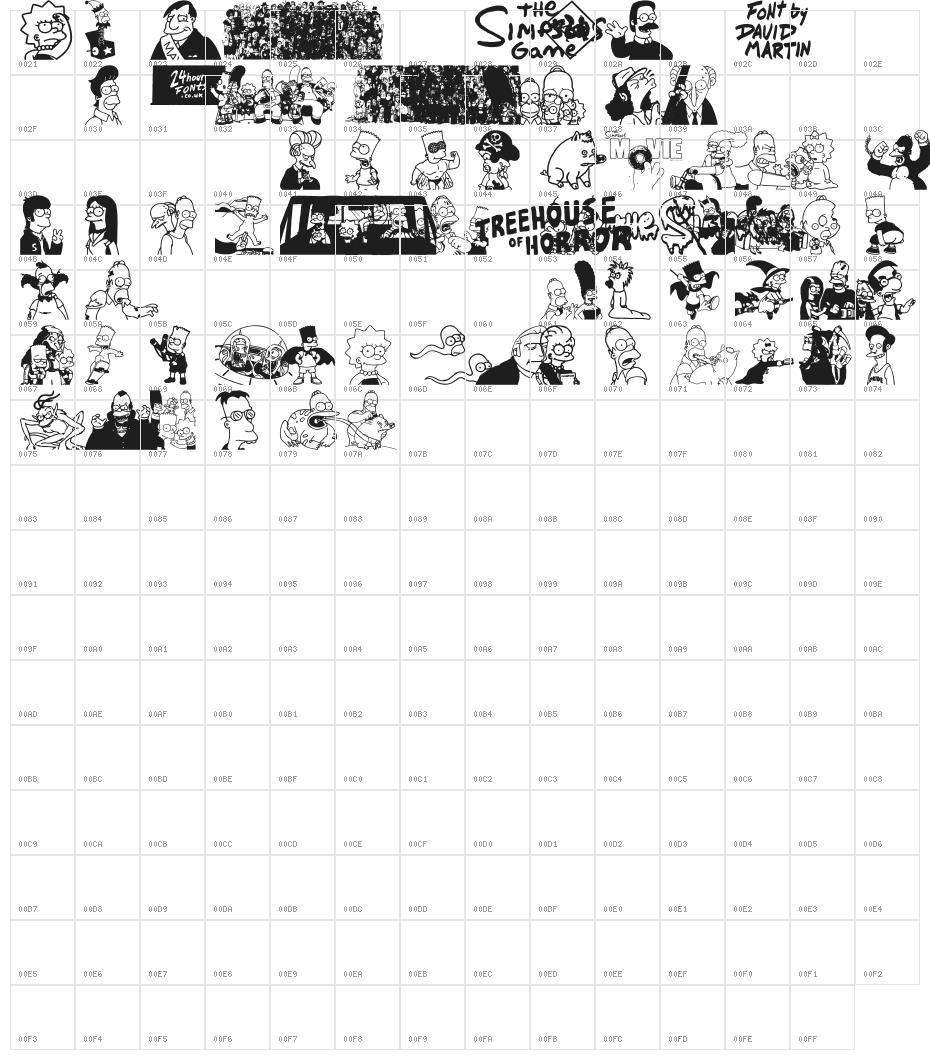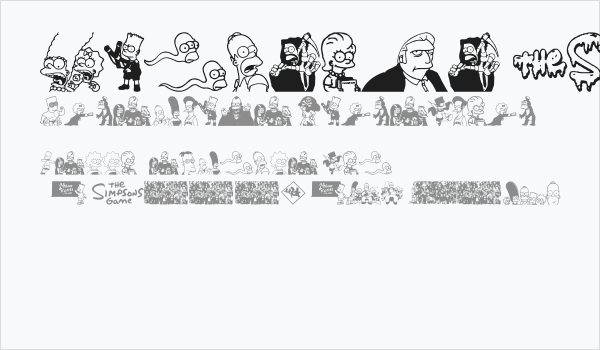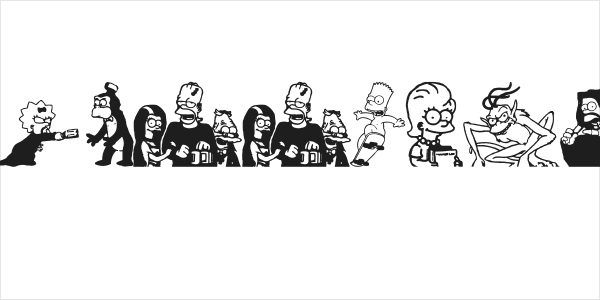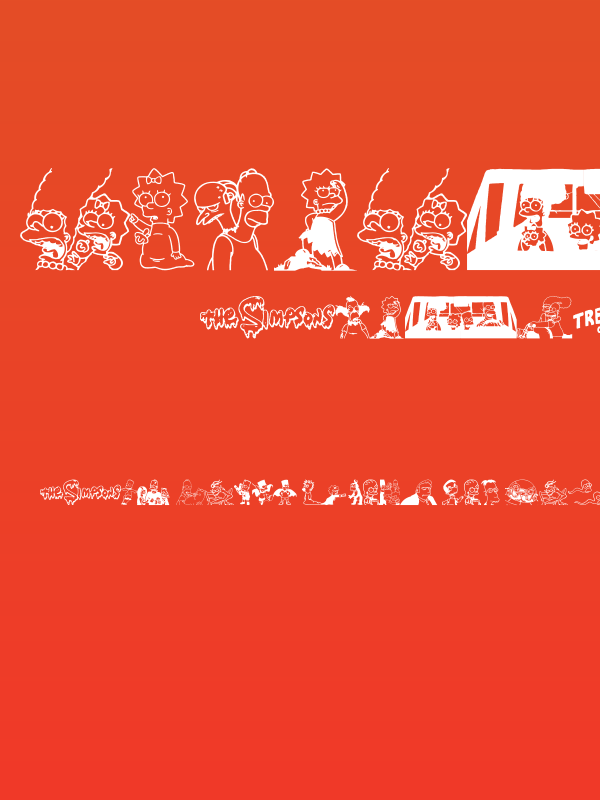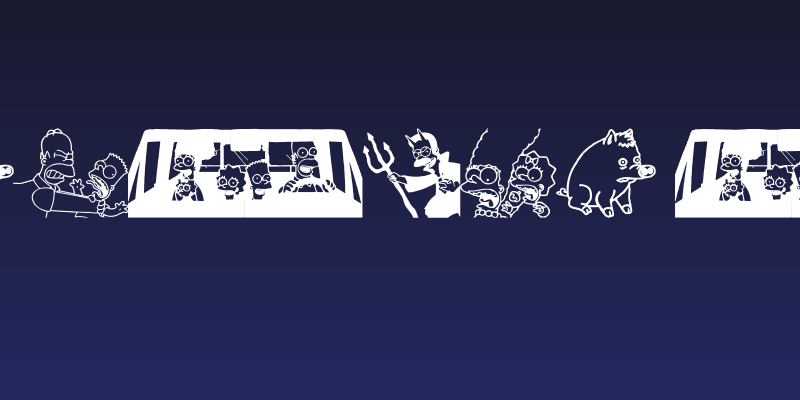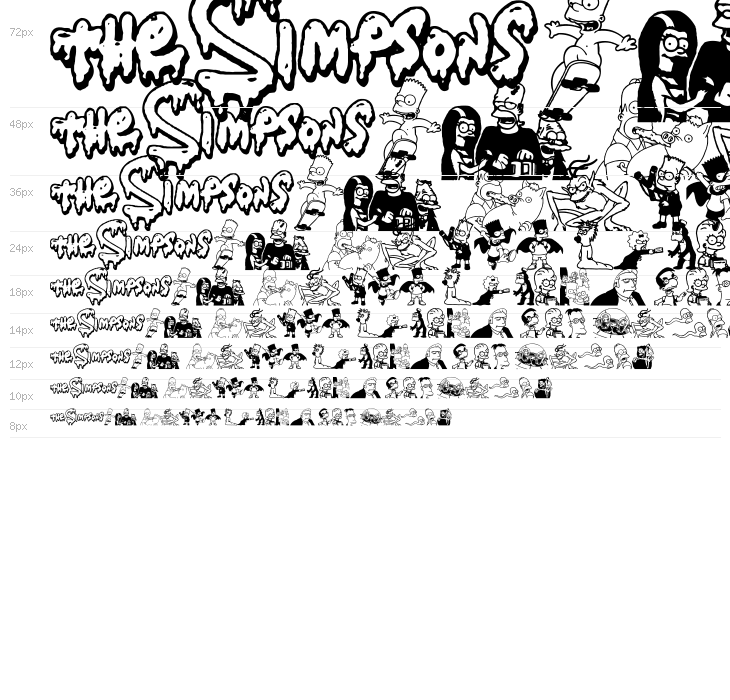
Simpsons Treehouse of Horror Font
A highly decorative and illustrative font composed of detailed cartoon character drawings and themed elements, referencing a popular animated series and its Halloween specials. Each glyph is represented by a unique character or scene, making it more of a pictorial or dingbat font than a traditional typeface.
Overall StyleDecorative, Cartoon, Thematic
Use CaseDecorative elements, Themed graphics, Not suitable for body text or standard headlines.
Proposed ProjectsFan art, themed party invitations, novelty posters, event flyers, collectibles, and decorative projects related to the animated series.